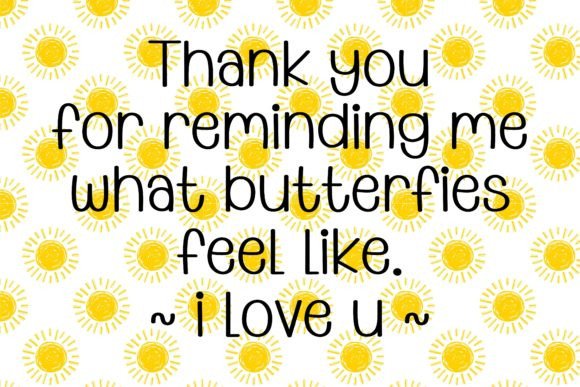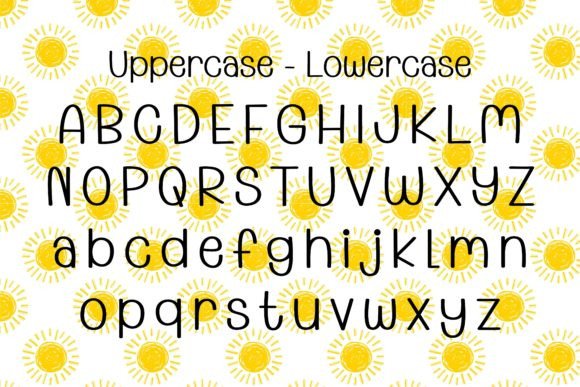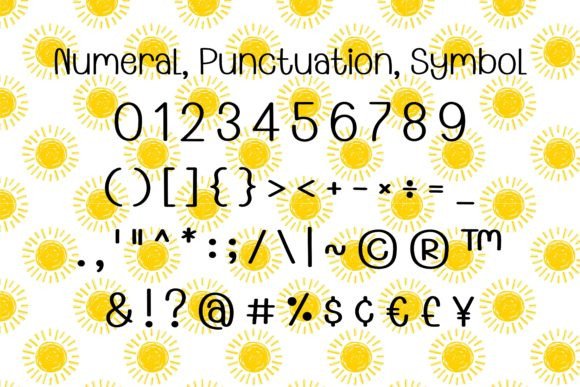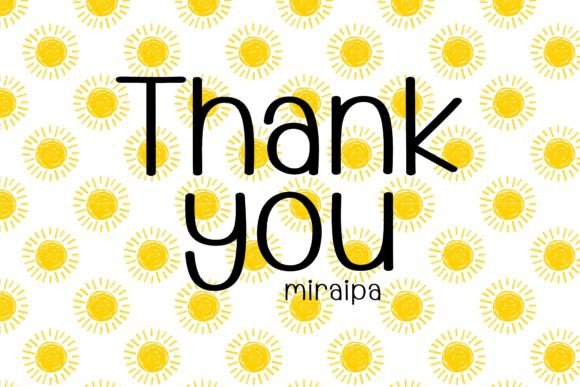
Introduction to Hello Sunshine Font
As a designer, there’s nothing quite like the thrill of stumbling upon a game-changing font that elevates your creative project to the next level. For me, that moment came when I discovered the Hello Sunshine Font – a stunning sans-serif typeface that instantly captivated my attention. With its sleek lines, subtle curves, and effortless legibility, it’s no wonder this font has become a go-to choice for designers seeking a high-quality design resource.
What sets the Hello Sunshine Font apart is its versatility and adaptability. Whether you’re working on a logo, branding, title, or any other design element, this font is sure to deliver. Its clean and modern aesthetic makes it perfect for a wide range of applications, from digital designs with a transparent background to print materials that demand a premium look.
- Unique characteristics: The Hello Sunshine Font features a distinctive, hand-drawn design that adds a touch of whimsy and personality to any creative project.
Honest Review: Hello Sunshine Font
I recently stumbled upon the Hello Sunshine Font, and I must say it’s a lovely addition to any creative project. The font’s playful and cheerful vibe immediately caught my attention, making it perfect for designs that require a sunny disposition.
- The Hello Sunshine Font is incredibly versatile and can be used for a wide range of design applications, from social media graphics to website headers.
- The high-quality design is clear and legible, even when used on a transparent background.
However, I did notice a few limitations with the font.
- The font is not ideal for formal or professional designs, as its playful nature may come across as unprofessional.
- The font may not be suitable for text-heavy designs, as its whimsical style can make it difficult to read in large blocks of text.
Overall, I’m impressed with the Hello Sunshine Font’s potential and versatility. While it may have some limitations, it’s a fantastic resource for designers looking to add a touch of personality to their creative projects.
When using the Hello Sunshine Font, consider using a transparent background to create a sense of depth and dimension. You can also experiment with different font sizes and styles to create visual interest and hierarchy.
The Hello Sunshine Font is perfect for design projects that require a high-quality, elegant font. Some common use cases include:
- Editorial and magazine design
- Website design and development